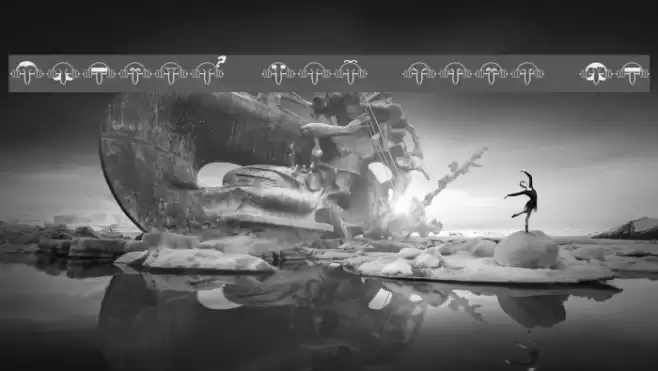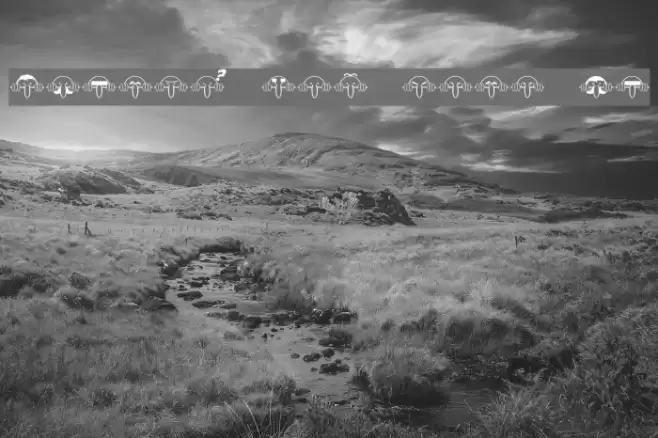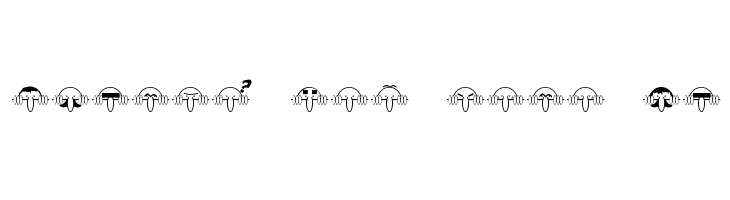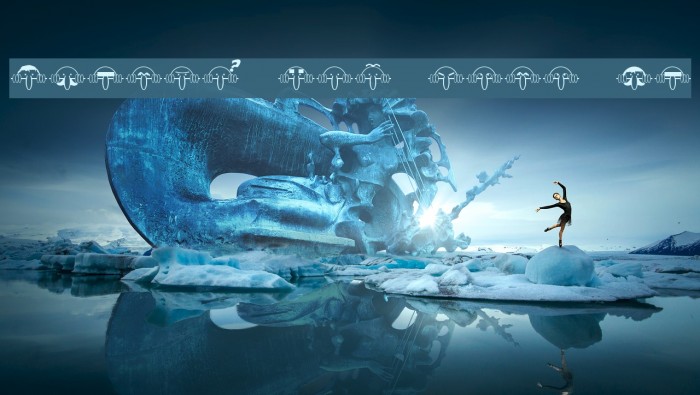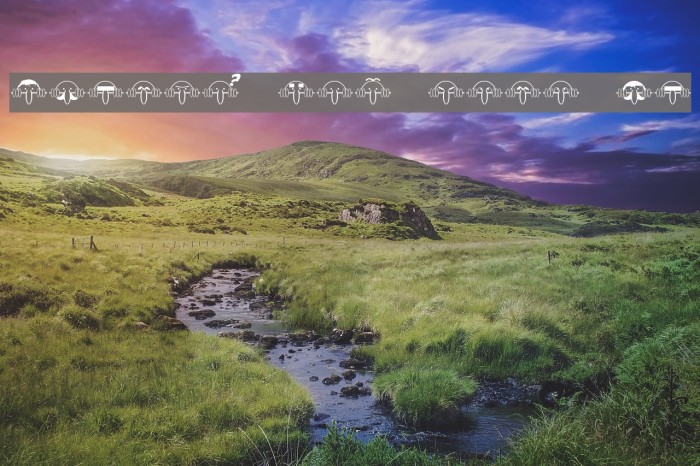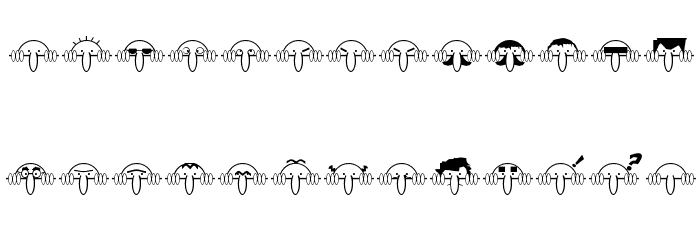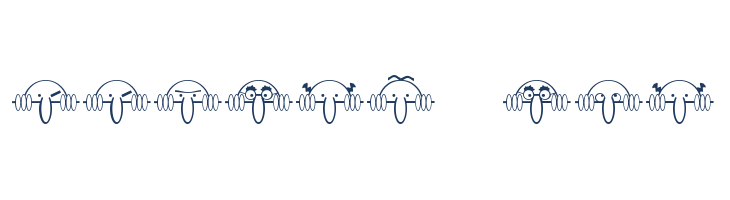
Kilroy Was Here JL Font
Kilroy Was Here JL Description
This font is a playful and whimsical design featuring the iconic 'Kilroy Was Here' doodle. Each character is represented by a variation of the Kilroy figure, peeking over a wall with different expressions or accessories. The design is consistent across all characters, maintaining the classic look of the Kilroy figure with its large nose and hands gripping the wall. This font is more of a decorative or novelty typeface, perfect for projects that require a humorous or nostalgic touch. The characters are evenly spaced, and the overall style is light-hearted and fun.
A whimsical font featuring variations of the 'Kilroy Was Here' doodle for each character from Uncategorized fonts.
- Proposed Projects: Ideal for comic strips, playful posters, children's books, or any project needing a humorous touch.
- Use Case: Logos, Posters, Comic Strips